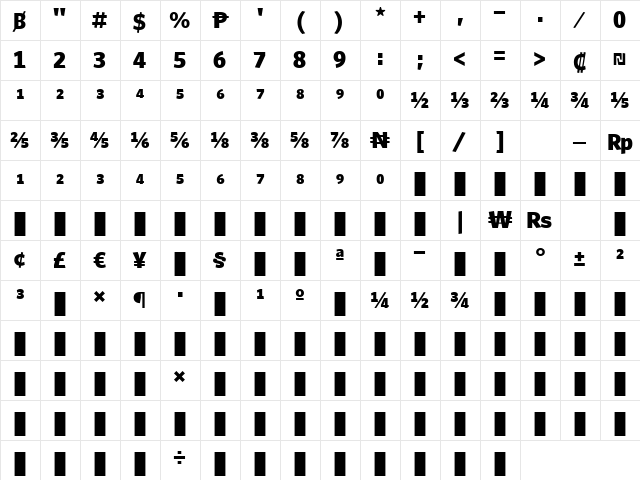
Whitney Numeric - Black Regular
Whitney Numeric - Black Family
Design Context for Whitney Numeric - Black
Whitney Numeric - Black is a composed and adaptable typeface that performs quietly and consistently across a wide range of design contexts.
Pro Tip: Use Whitney Numeric - Black in both headline and body roles to test its range before committing to a single application.